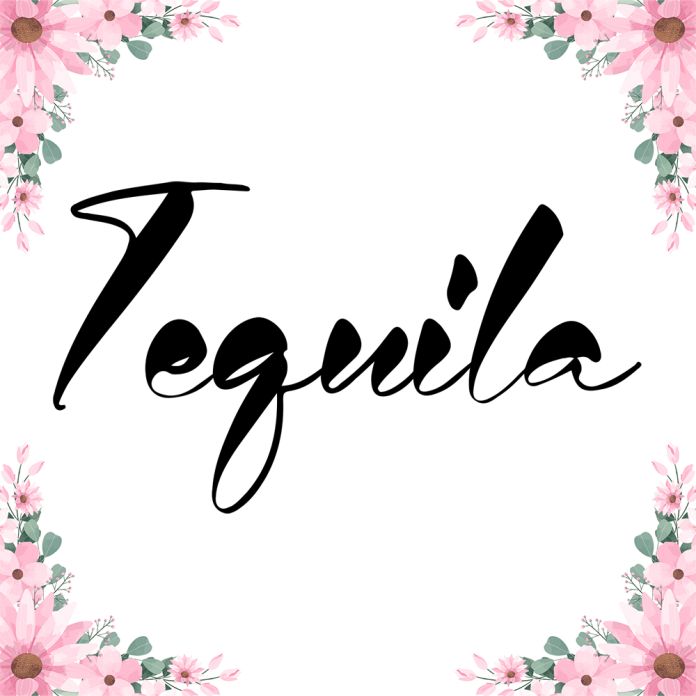
Tequila Script is perfect for product packaging, branding projects, megazine, social media, weddings, or just used to express words above the background.